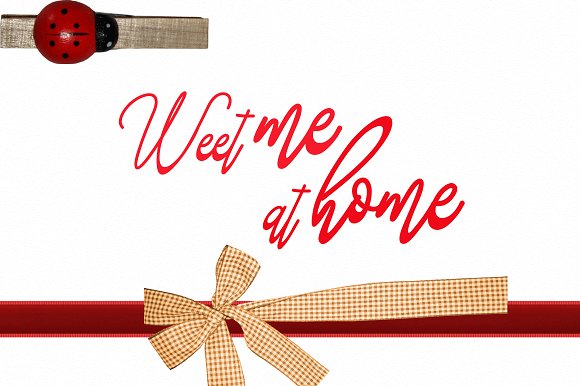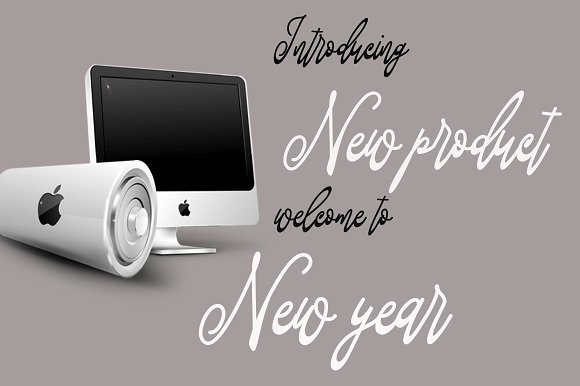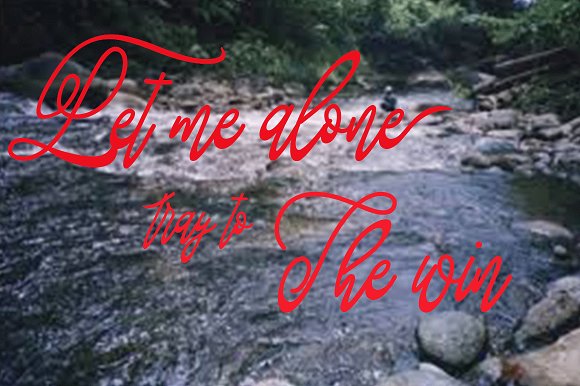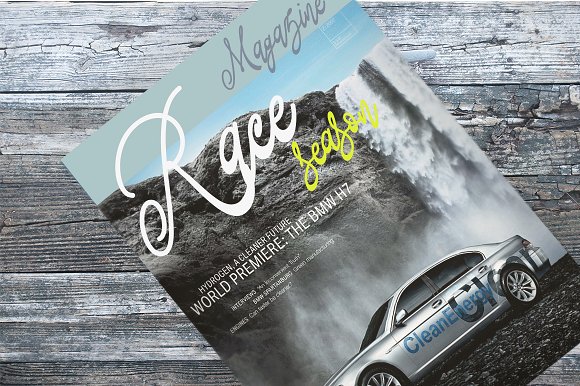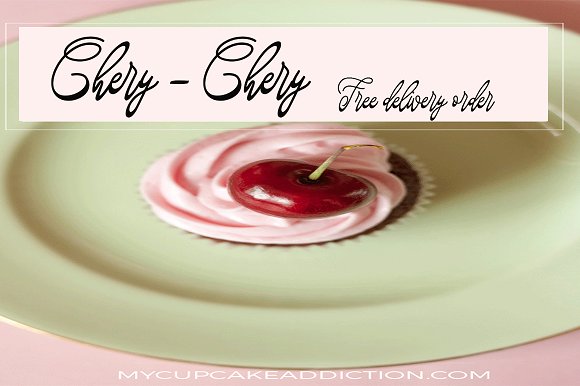
Fastter Font
Fastter font is a simple font to ease your work ,for any needed font ,,, so thank for your ceeking my font and I really hope you enjoy it ,,,, Include :
Fastter font with alternates in lowercase & uppercase for ease tou you, I really hope you enjoy it.